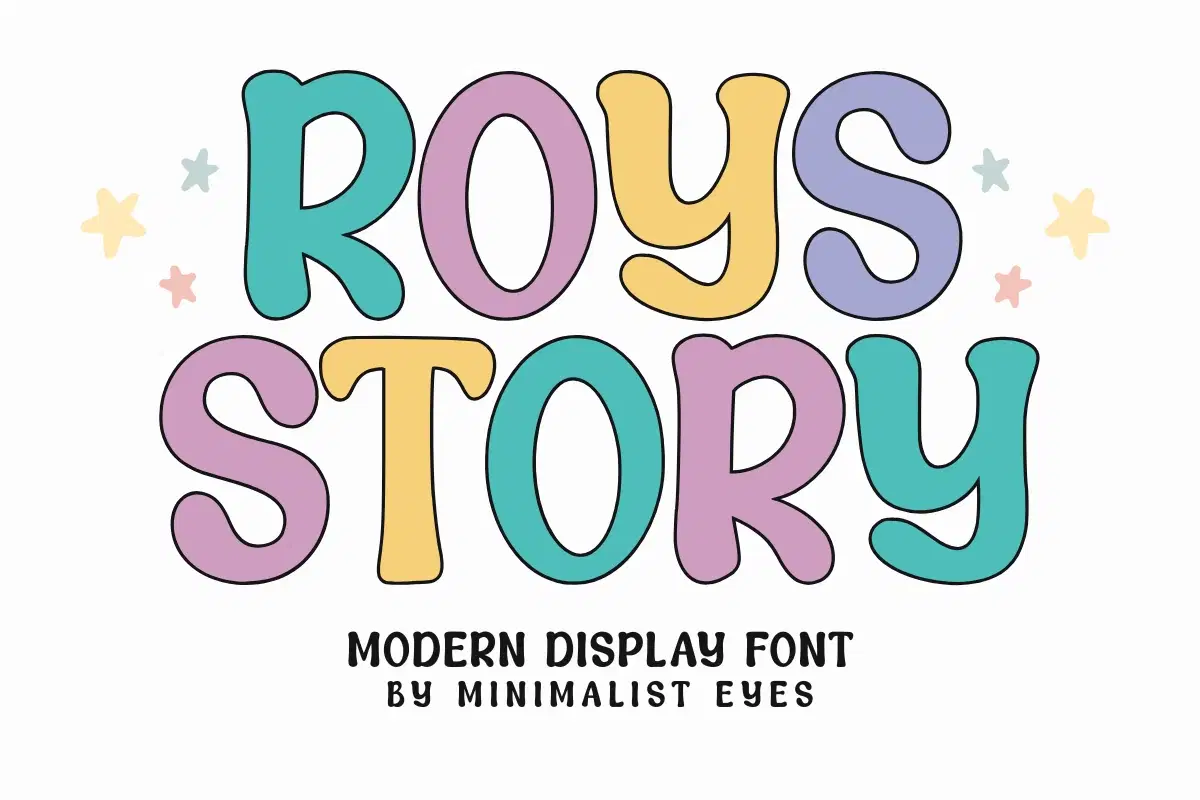
Roys Story is a vibrant and playful modern display font that captures a sense of whimsy and fun. Designed with soft, bubbly curves and a bold personality, this font is perfect for creating eye-catching headlines, nursery wall art, kids’ branding, and playful merchandise.
Whether you are working on retro-inspired designs, colorful school projects, or cheerful social media graphics, Roys Story provides a friendly and approachable aesthetic that pops. It is fully compatible with Cricut, Silhouette, and professional design software for seamless crafting.